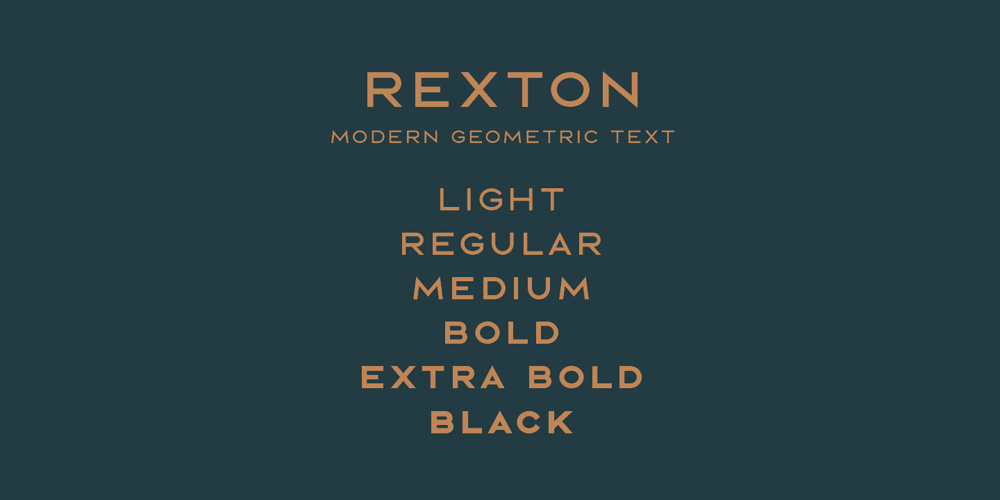
Rexton Font Family was designed by Greg Nicholls and published by Rook Supply. Rexton contains 6 styles and family package options. Rexton is a light, clean, geometric typeface of 6 weights. The contemporary typeface aims to have a timeless and modern vibe. Designed for optimum legibility, its clean, geometric look is perfect for logos, headers, titles and brochures.